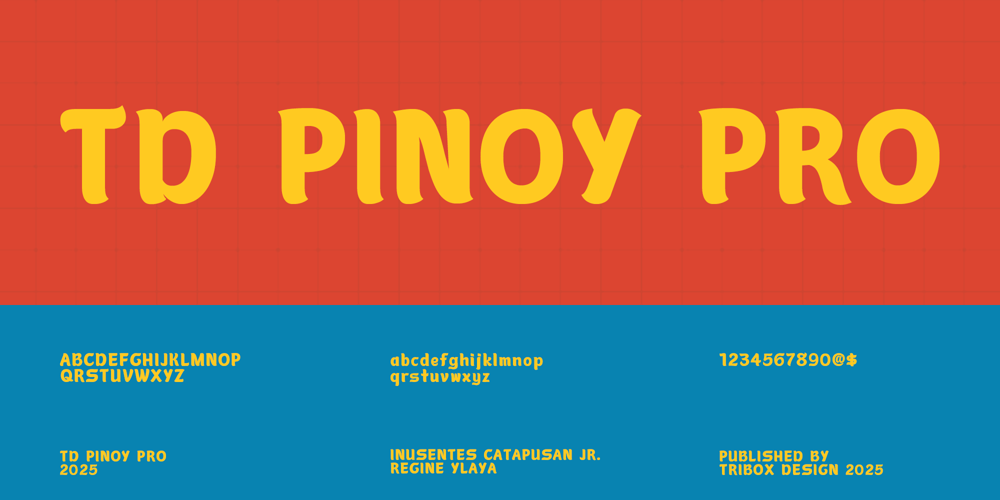
TD Pinoy Font Family was designed by Inusentes Catapusan and published by Tribox Design. TD Pinoy contains 1 styles and family package options. TD Pinoy Font is a brush-painted, street-inspired typeface that captures the essence of Filipino culture. Its glyphs feature a distinctively curved structure, a style heavily influenced by Spanish heritage and carried forward by local painters, calligraphers, and artists. This brush-style font is perfect for displays, posters, T-shirt designs, and any project where tradition seamlessly blends with modernity.